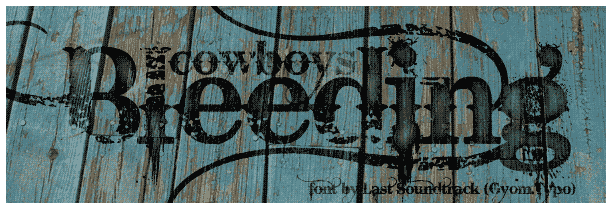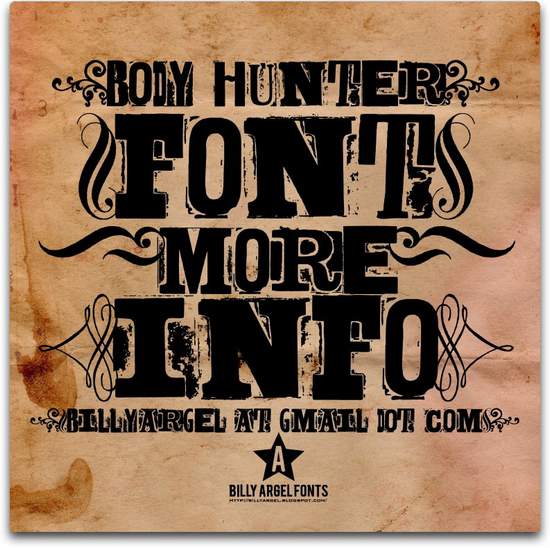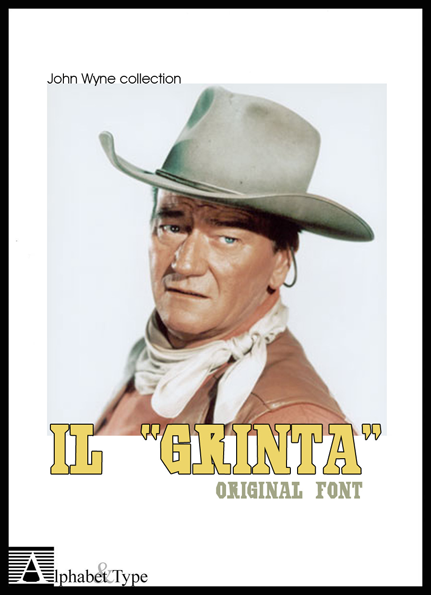
30 Free Western Fonts Collection
A good web designer should always take into consideration the need to learn about fonts – the different types, styles, and availability. There is what we call western fonts that you can add to your collection. Website design is not just about the output of the design itself; it also has something to do with all the minute details included. This includes the use of western fonts.
Whether or not you have a keen eye for design, humans, in general, are very visual. Therefore, we ourselves know which one is attractive and which one is not. At times we may not understand why something is not attractive, but if we dig into it very carefully, it might just be the font that’s holding the key to understanding everything.
While it may be safe to stick to the basic fonts, it does not hurt to try something new. Still, it does not mean that you will just use anything that you find pleasurable. Check the list of free western font’s collection below and see which one is attractive for you. The font should also serve as a complement to the overall theme of the created website.
Today we hand-picked 30 free western fonts that are designed in simplicity. We hope they may be useful for your design projects, such as poster design or retro western theme.
Why Choose Western Fonts For Your Project?
Westernization is sweeping over the world. If you take the east, many parts are already accepting the ways westerners live their life. This means that companies that are global needs to include a western outlook to their project. Apart from brands, the fonts can also work well with the projects that target teen audience as it offers style, outlook and forward-moving outlook.
The western fonts that we have chosen will fit into your project if you are trying to use a western outlook or an old-fashioned cowboy’s outlook. Clearly, if you have a product or service that has a cowboy’s reference, you should use the western fonts for you!
30 Free Western Fonts Collection
Bleeding Cowboys
Bleeding Cowboys offers a cowboy look to the font. If you are using it for your personal project, then you can use it without any issue. However, if you are using it for a commercial project, then you need to contact the author at the email given on the page. The font is very popular and has already been downloaded more than 6 million times!
Rio Grande
Rio Grande is yet another amazing font. It is created by Anton Krylov and has been downloaded two million times.
CM Old Western
Carnevalee Freakshow
Drift Type
Alpha Wood
Western
Woodcut
Saddlebag
IFC Rail Road
Rustler
Vanilla Whale
Shadowed Serif
Wild West
Body Hunter
Saloon
Bou Western
Post Office
Pinewood
Fred Wild West
Logger
Wood 2
Madfont
Pirates Gold
Baccer
Jokewood
Tuscan MF
Tombstone
Il Grinta